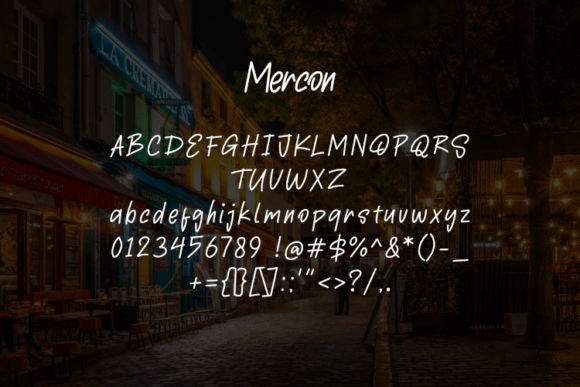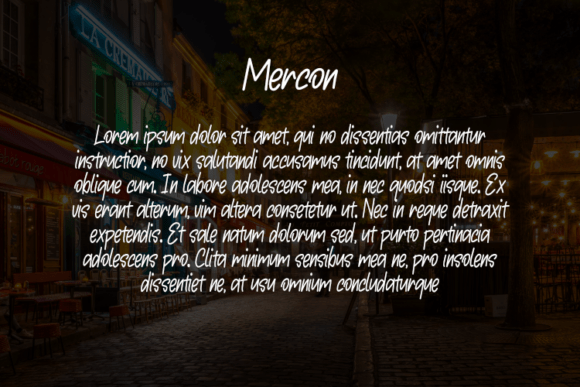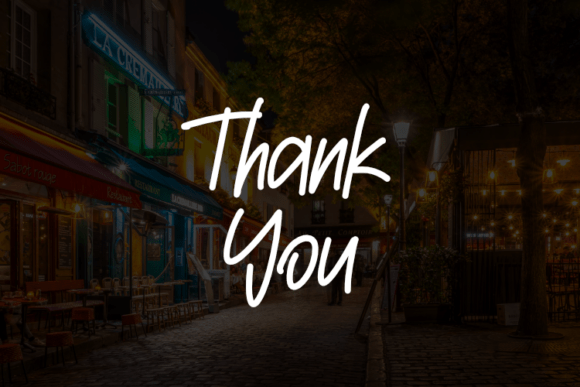
Introduction to Mercon Font
Presenting “Mercon”, an adaptable and versatile font that seamlessly fits into a range of design applications.
Tailor-made to breathe life into fashion designs, emblazon t-shirts, and enhance the appeal of various other products Its compatibility knows no bounds — it effortlessly works across all design software platforms.
Key Features of Mercon Font
Why Choose Mercon Font?
Mercon Font offers exceptional quality and versatility, making it a valuable addition to your design toolkit. Whether you’re creating for personal projects or commercial use, Mercon Font delivers professional results.